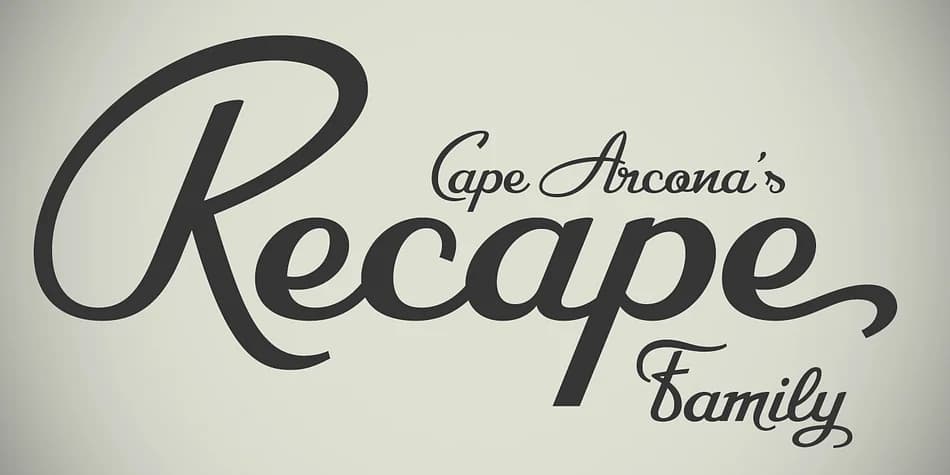
Picture yourself designing signage for a 1950s-inspired cocktail bar, and you reach for CA Recape from Cape Arcona Type Foundry. This vintage script family comes in two styles that nail that hand-drawn, bespoke quality every brand wants without looking generic. The typeface draws from classic American midcentury lettering but takes an unconventional approach, cherry-picking the quirkiest and most charismatic letter shapes from that era rather than simply reviving a single historic style.
Where CA Recape really shines is in applications where that deliberate, handcrafted vibe matters. Think vintage business cards, custom event invitations, artisan product packaging labels, or retro-inspired restaurant menus. It works equally well for logo design and display headlines in editorial layouts. The letterforms carry genuine personality, that slightly off-kilter charm that reads as intentional rather than sloppy.
The typeface includes a full set of OpenType features, including contextual alternates, stylistic variations, swash underlining, ligatures, and decorative ornaments for programs that support them. There's also a Raw variant available if you want that deliberately distressed, worn-printing look. Both styles deliver strong presence at large sizes and read distinctly even in smaller applications. Grab this one from Creative Fabrica when you need a script with character that doesn't feel recycled.
- Elegant, Flowing
CA Recape Font is a script font that shines as a display or heading face. Pair it with a clean sans-serif or serif font for body text β the contrast creates a clear hierarchy while the two styles stay balanced and easy to read.